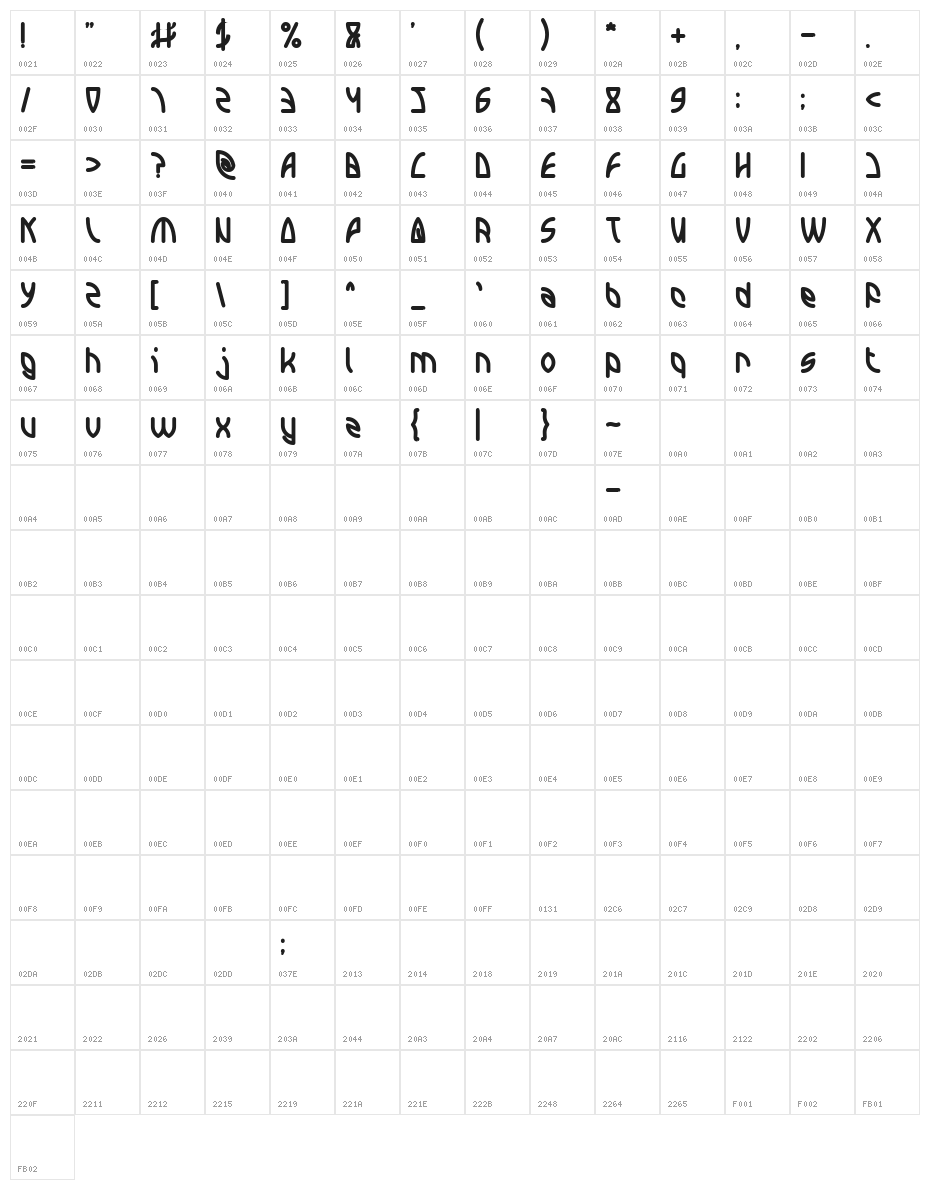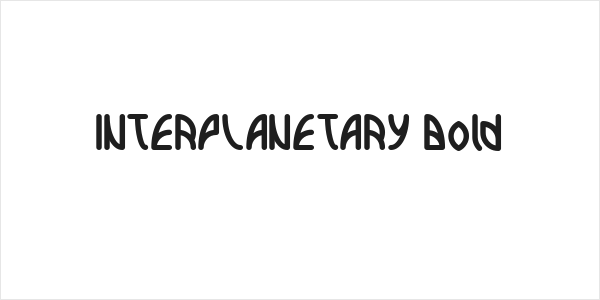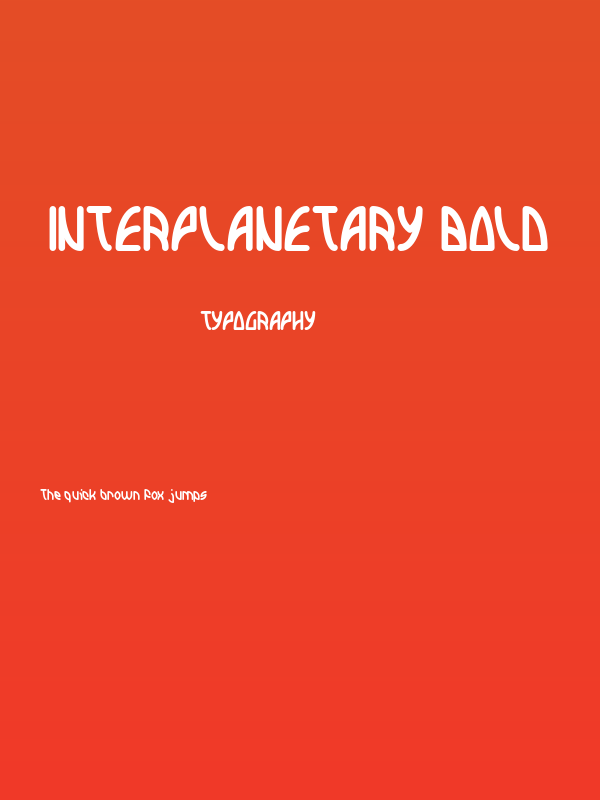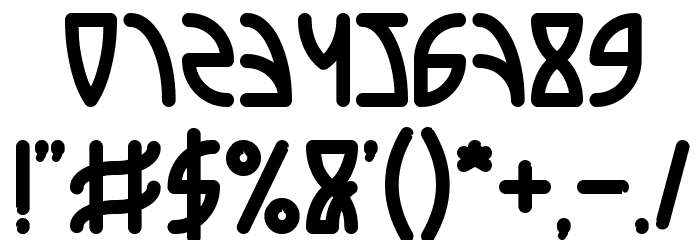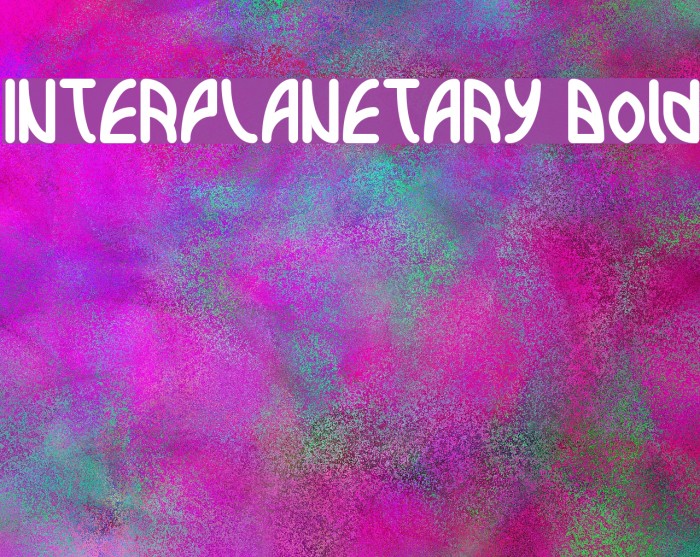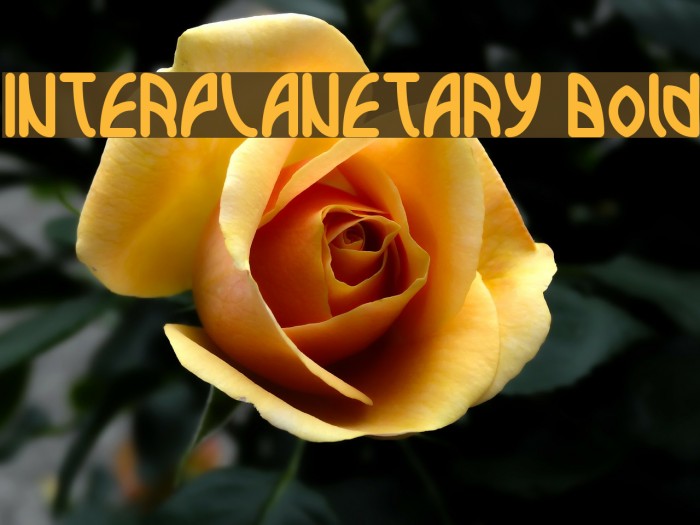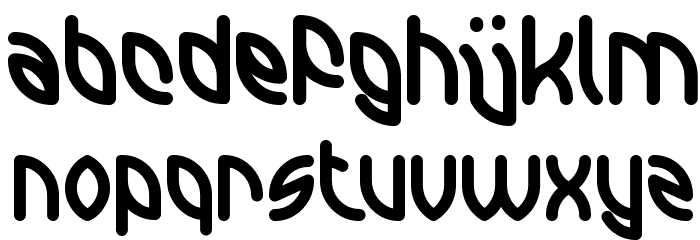
INTERPLANETARY Bold Font
INTERPLANETARY Bold Description
This font features a futuristic and bold design, characterized by its rounded and smooth letterforms. The uppercase and lowercase letters maintain a consistent style, with a playful and slightly retro aesthetic. The numbers and special characters are designed to match the overall theme, providing a cohesive look. The font's unique style makes it stand out, with a modern twist that could be used in various creative projects. Its boldness and distinct shapes make it suitable for attention-grabbing designs.
INTERPLANETARY-BOLD UPPERCASE
INTERPLANETARY-BOLD LOWERCASE
INTERPLANETARY-BOLD OTHER CHARS
| Overall Style | Futuristic, Playful |
| Proposed Projects | Ideal for sci-fi themed posters, video game graphics, futuristic branding, and creative digital art. |